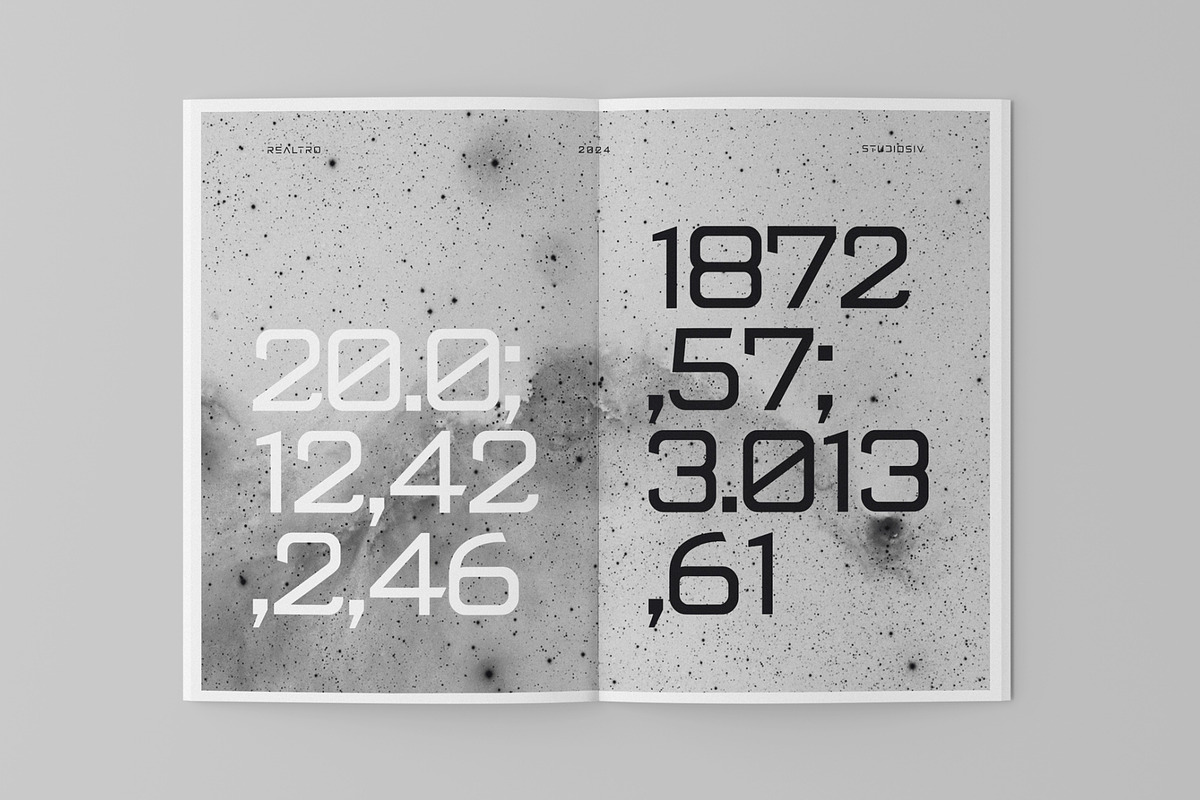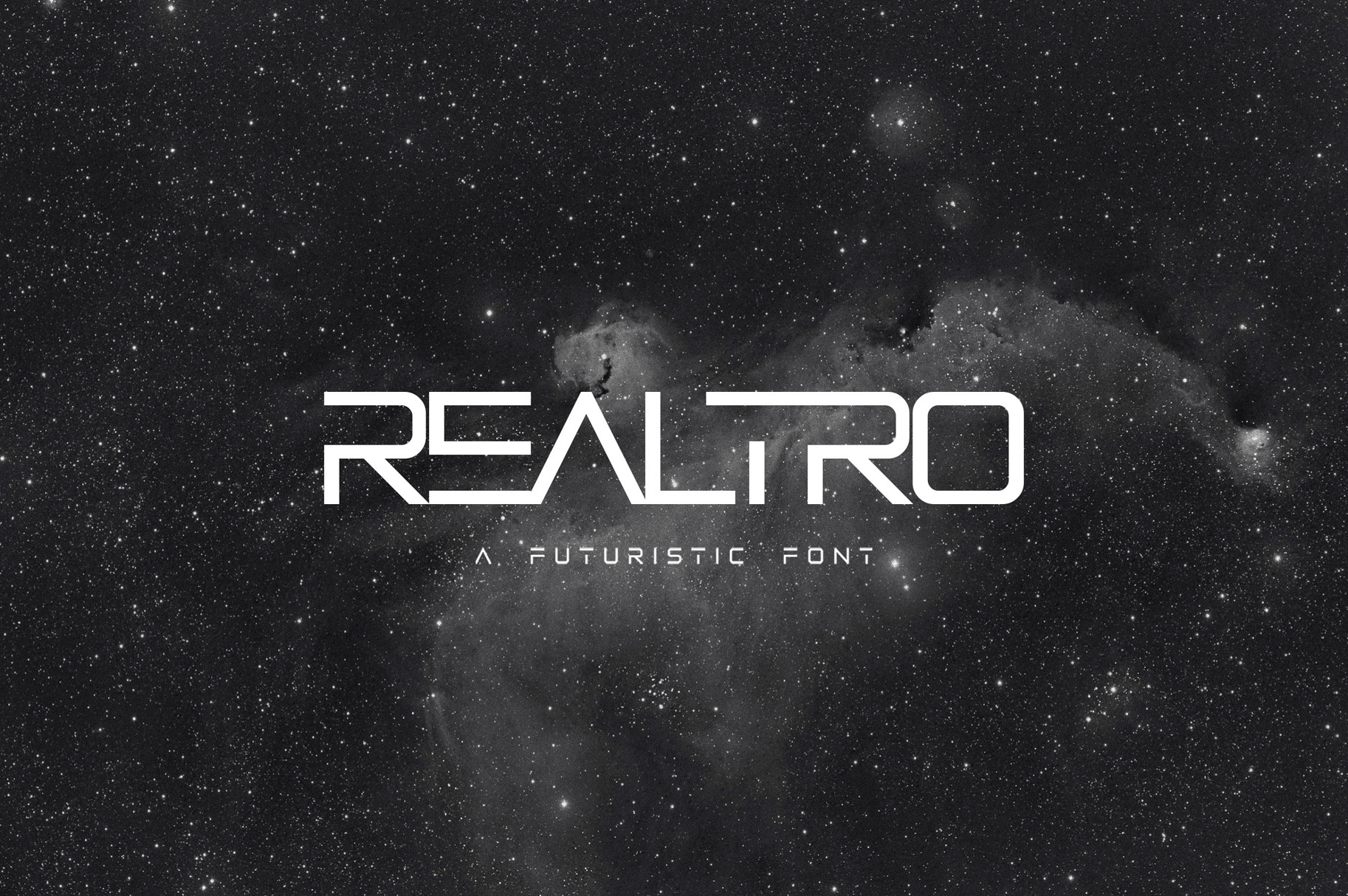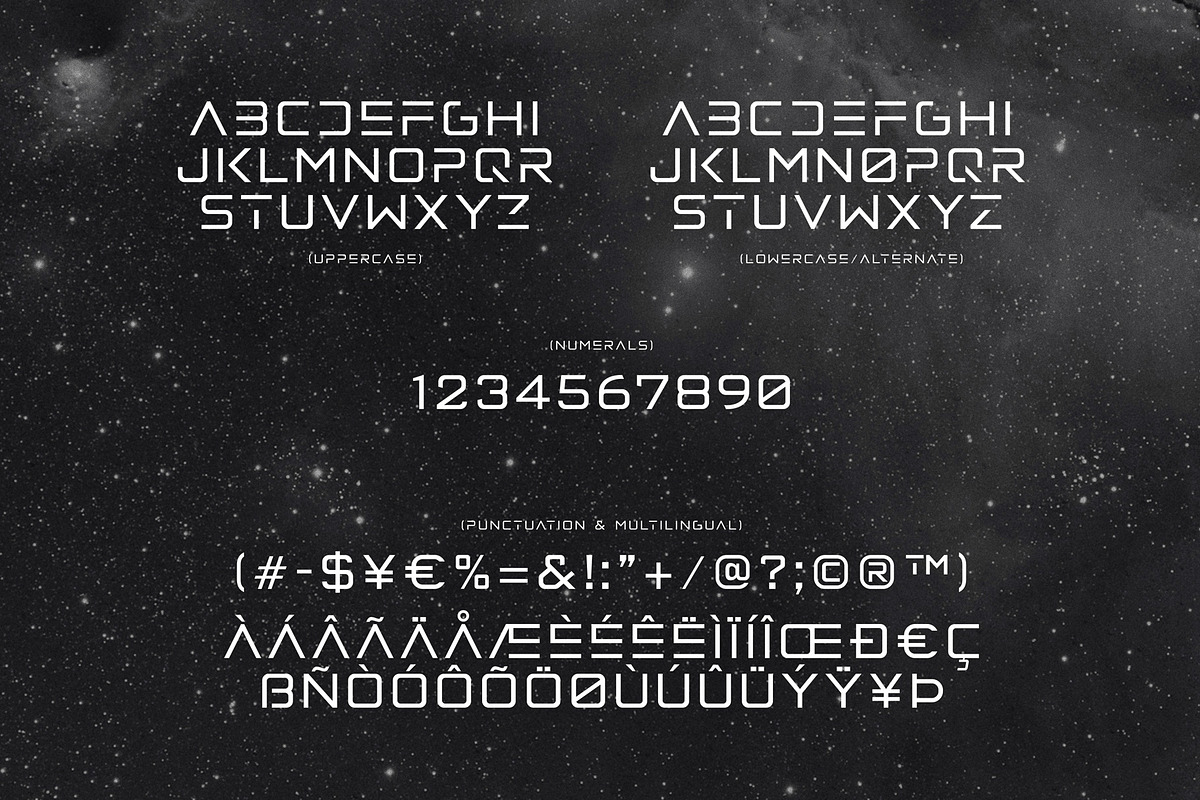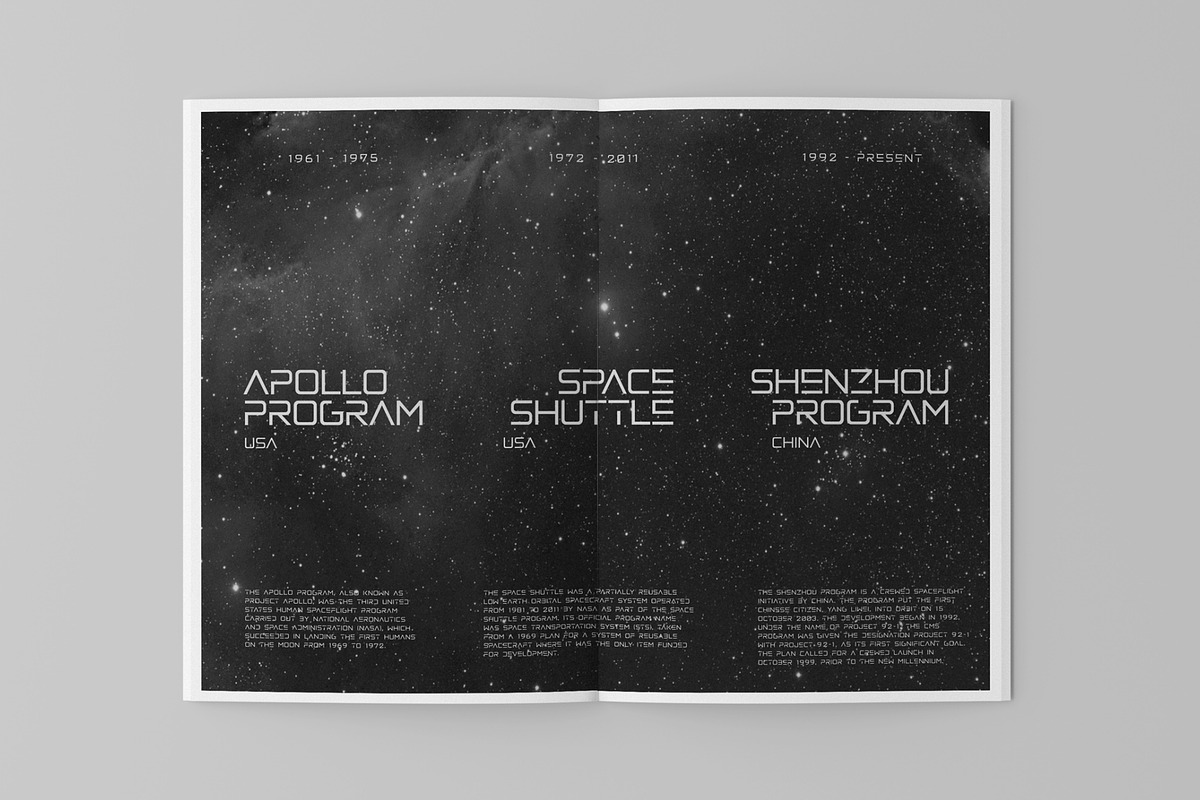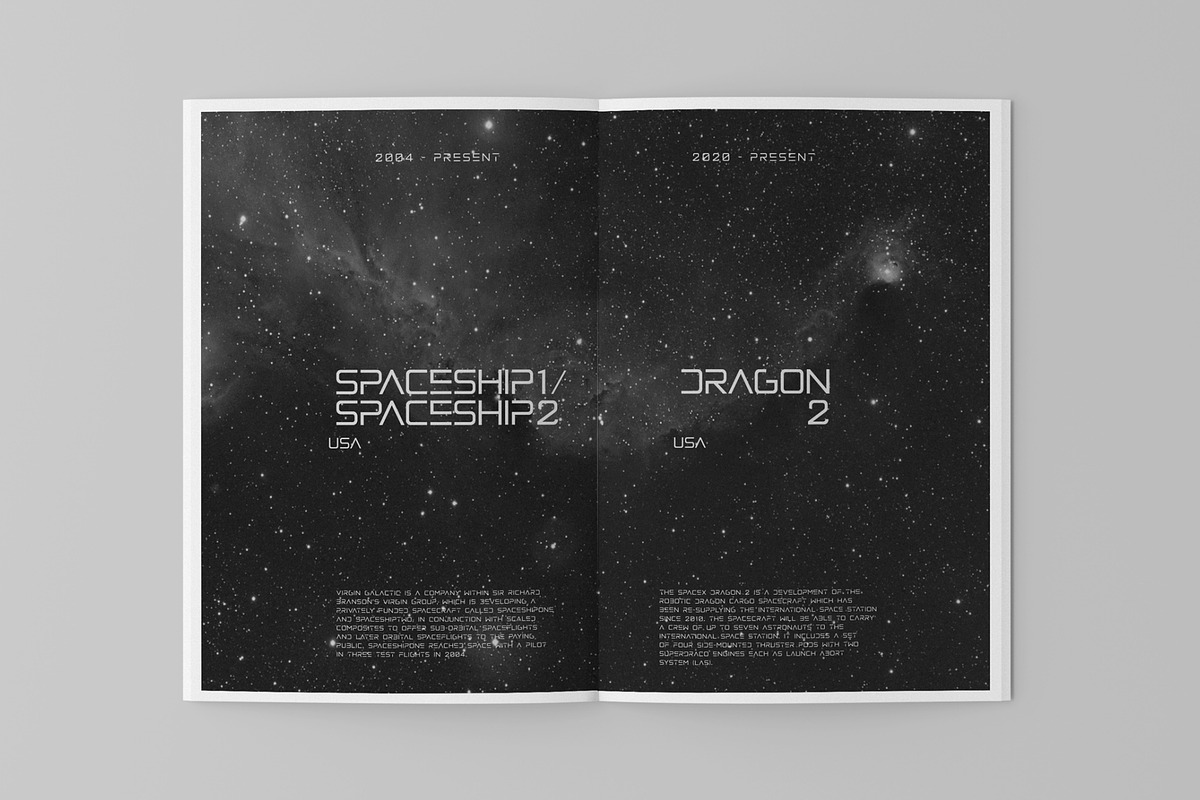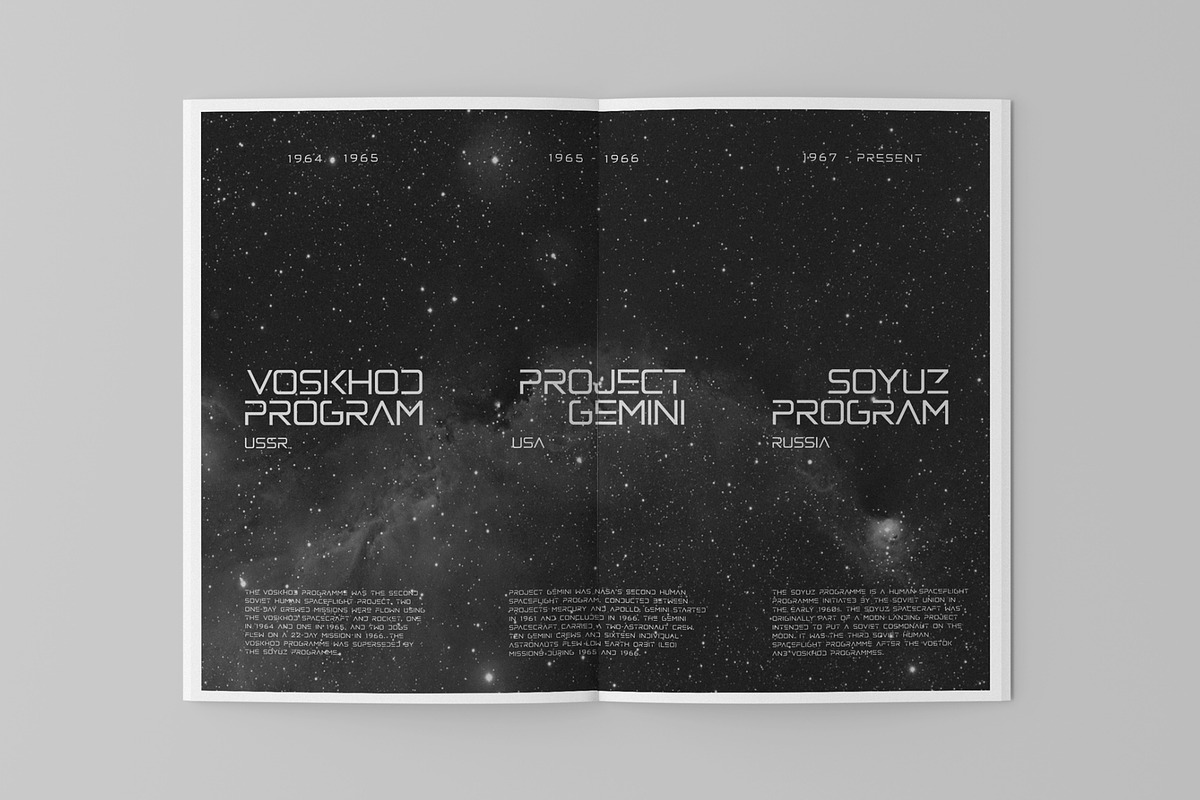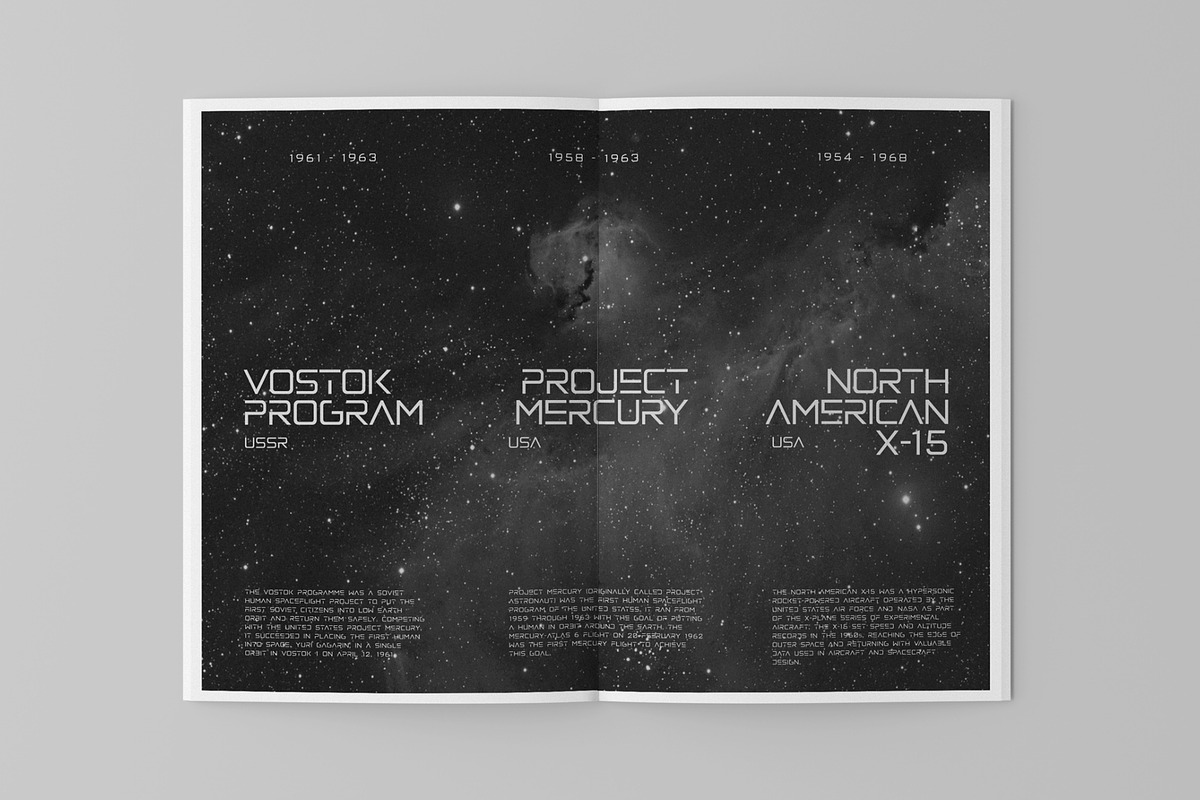
Realtro - Futuristic Font
Realtro is a futuristic font with trimmed letters and a futuristic vibe inspired by the space age. It consists of uppercase with alternate letters, multilingual letters, numbers and punctuation.